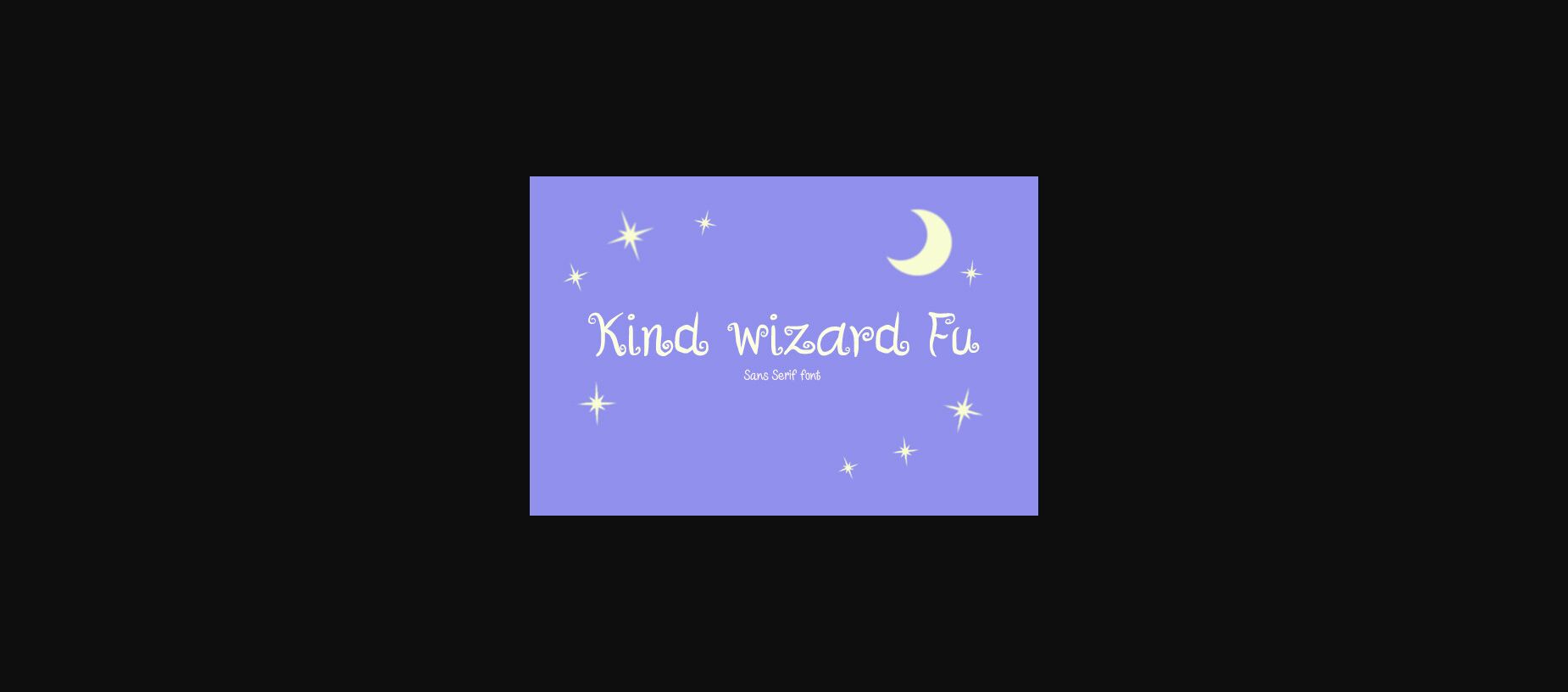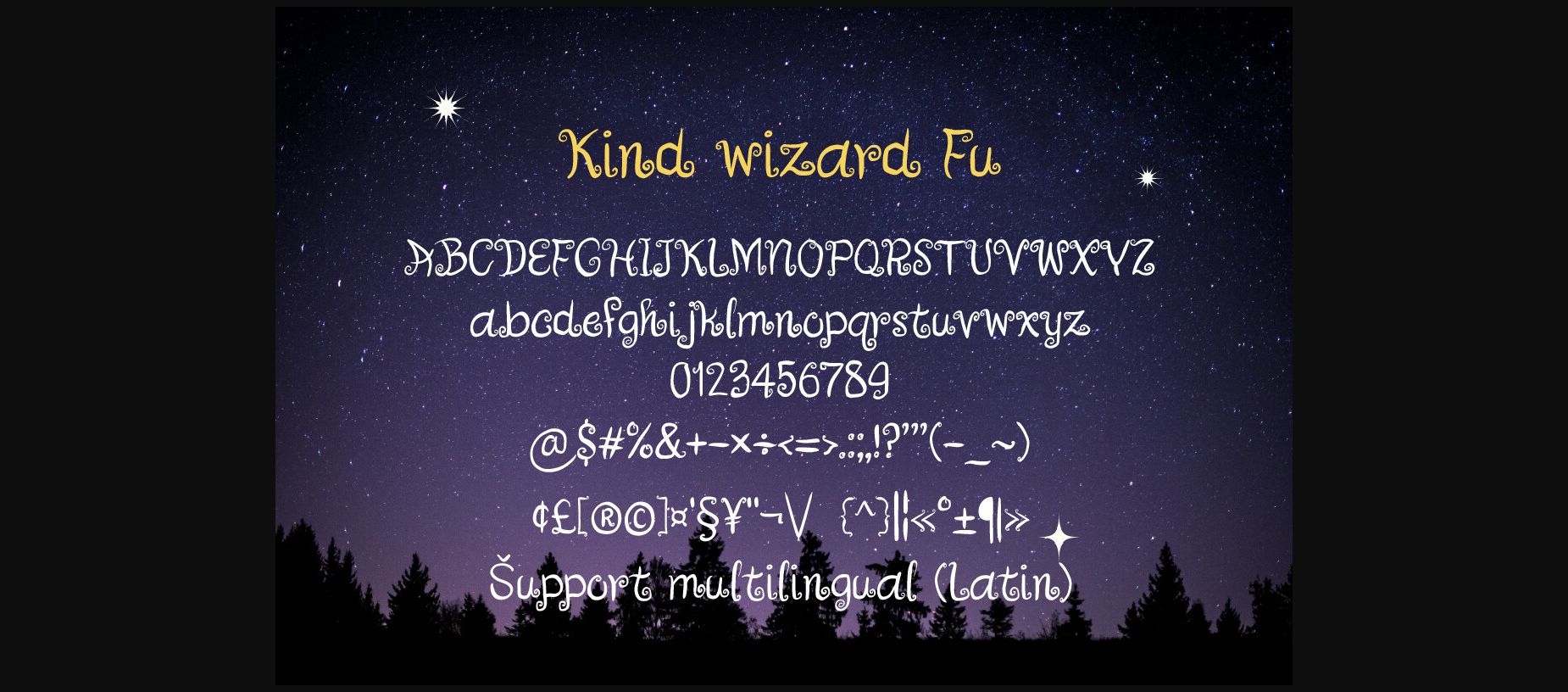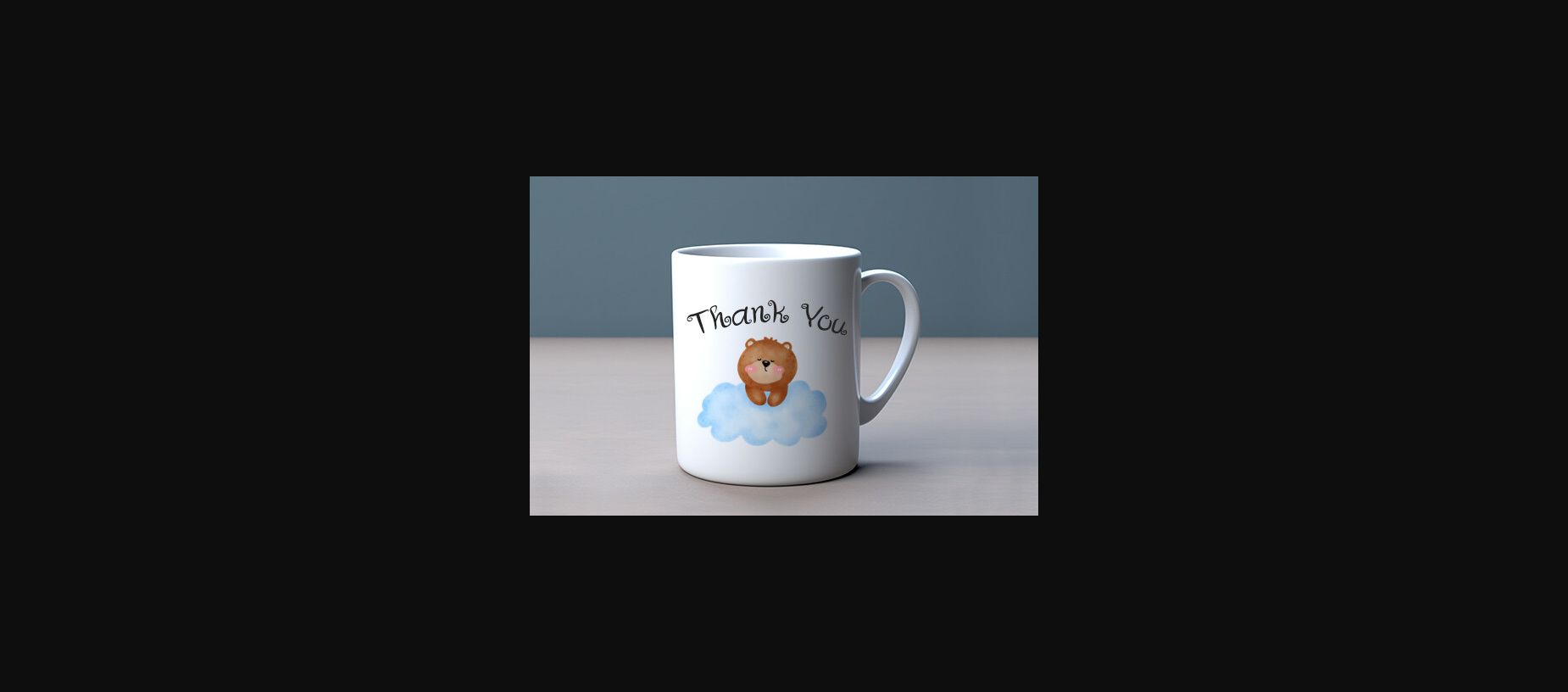
About Kind Wizard Fu Font
Kind wizard Fu is designed in a cute and playful sans serif font style. It’s charming, whimsical, and a bit quirky. It would be awesome to your fun projects or headlines, party invitations, Fall, Halloween, Christmas, posters, blogs, clothing, social media posts or anything that needs a friendly touch. Add it to any of your creative projects!